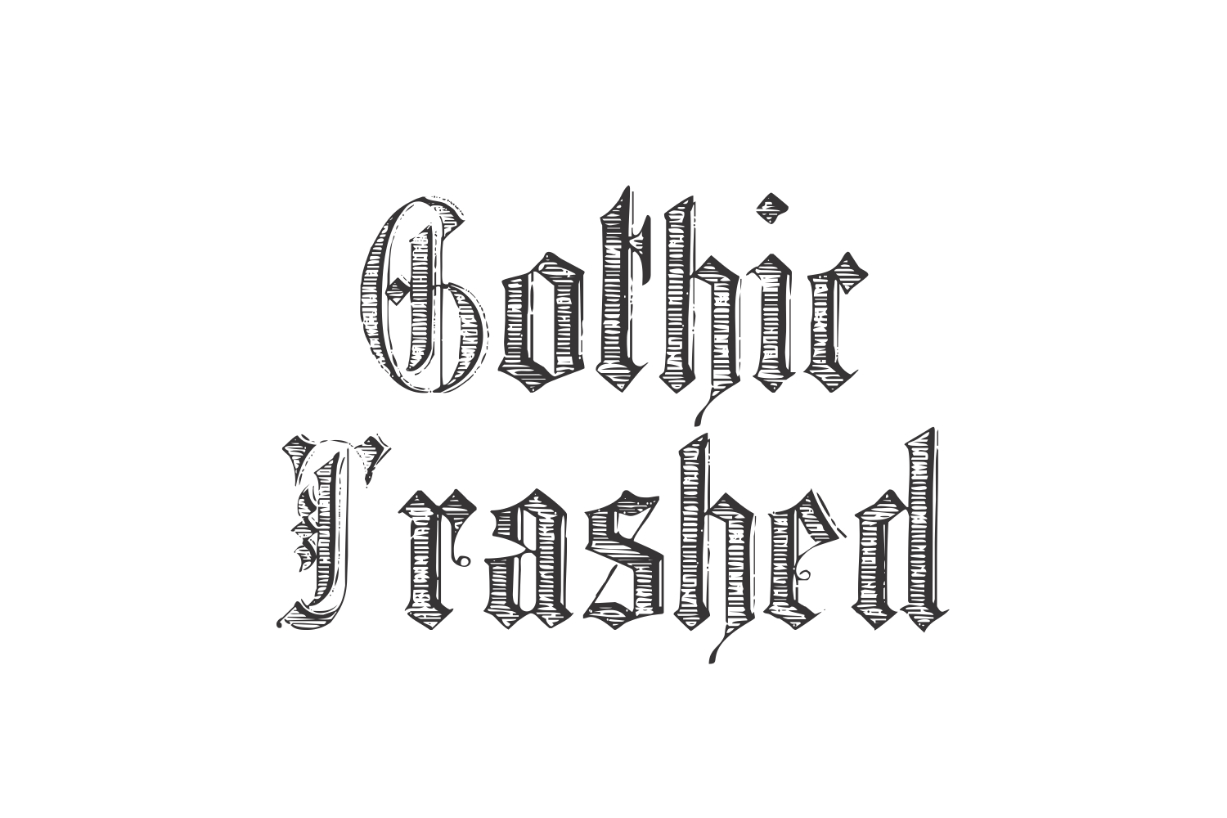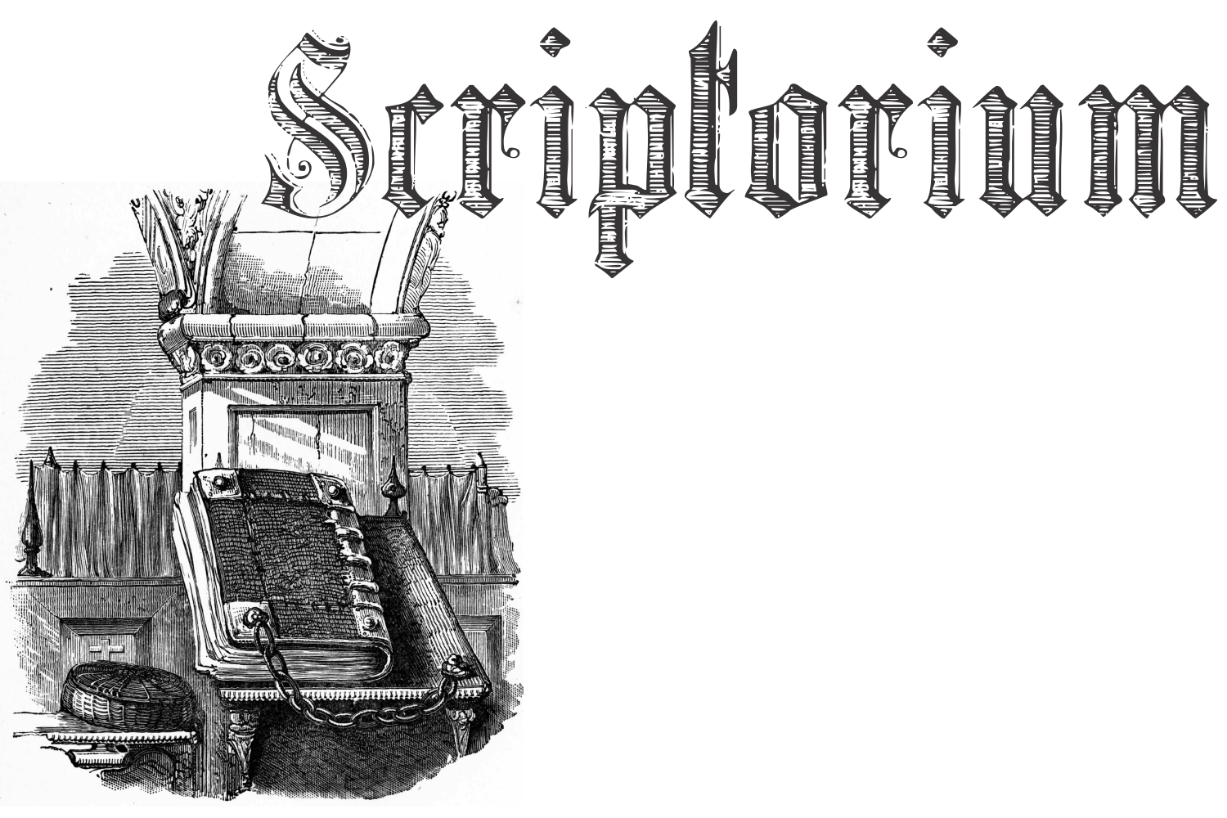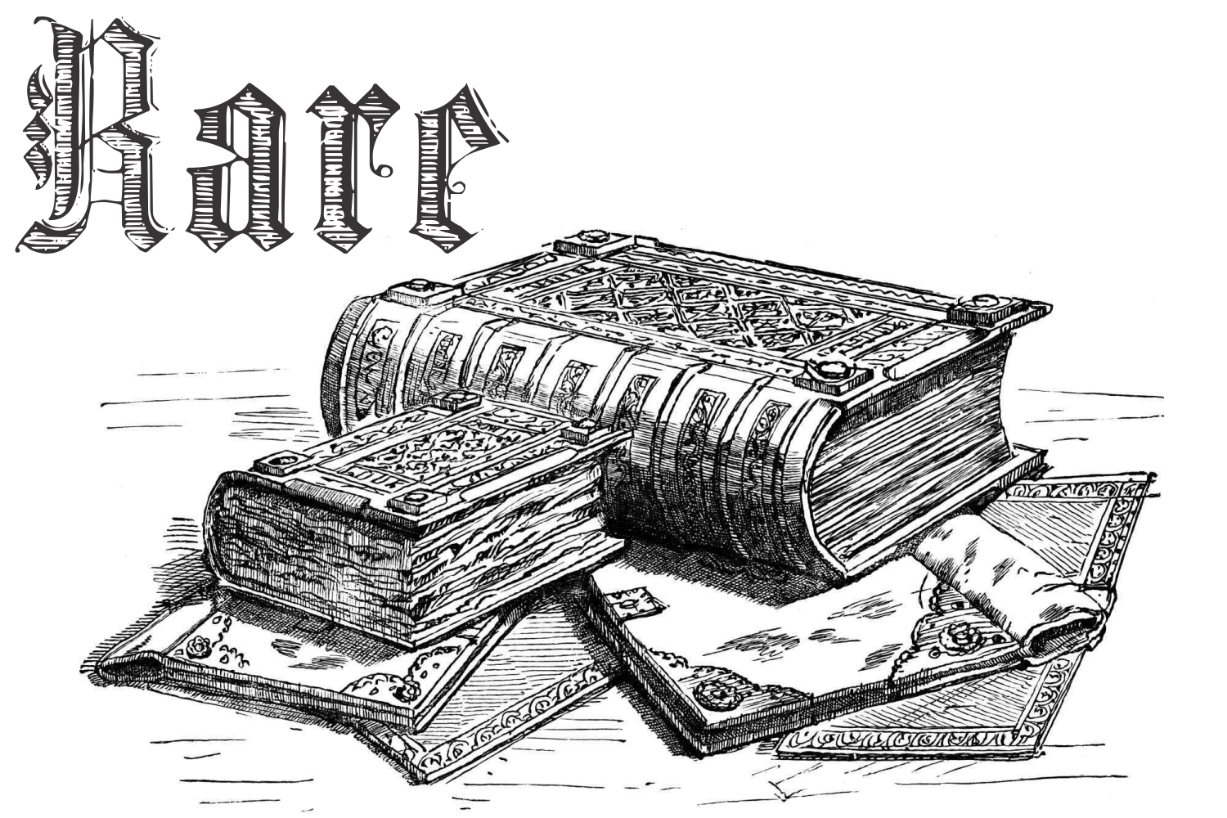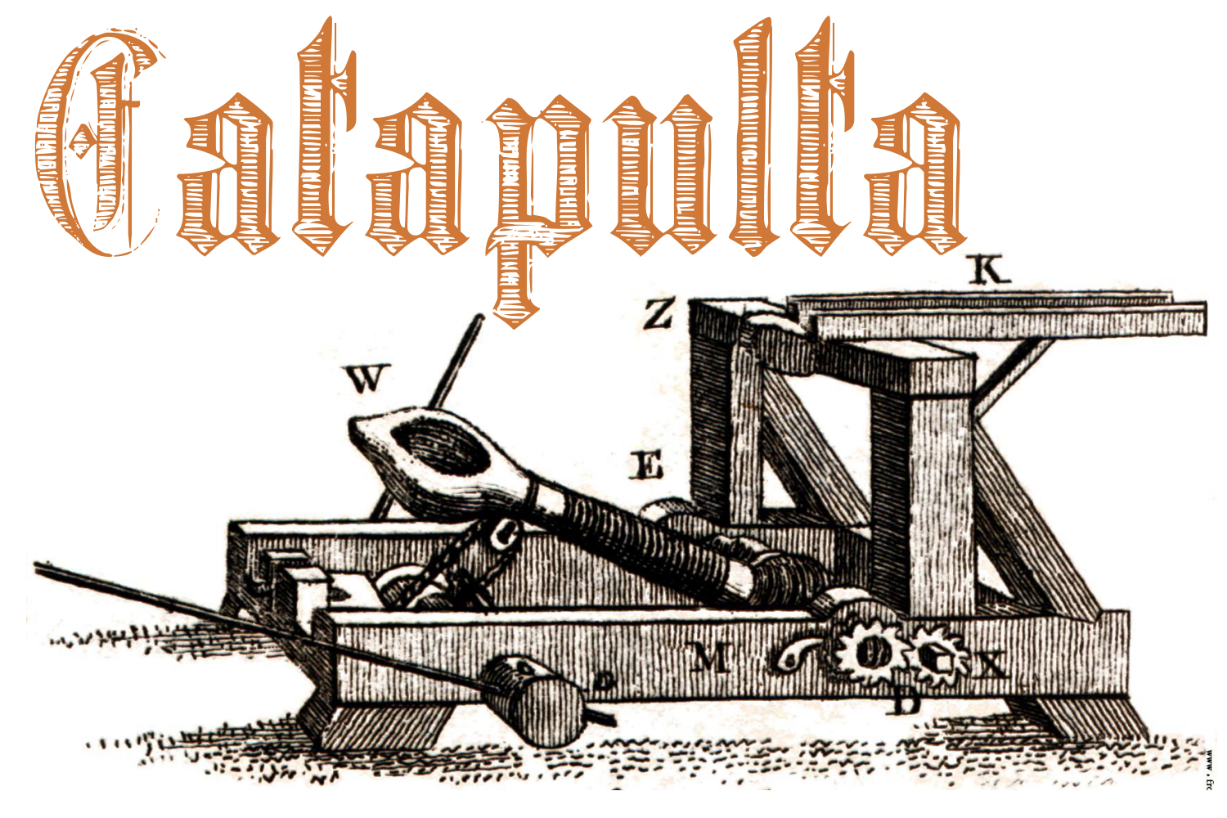
HomeBlackletter FontsGothic Trashed Font Blackletter Fonts Gothic Trashed Font FacebookXPinterestWhatsApp 1 of 6 Gothic Trashed Font Poster 2... Gothic Trashed Font Poster 3... Gothic Trashed Font Poster 4... Gothic Trashed Font Poster 5... Gothic Trashed Font Poster 6... About Gothic Trashed Font The Gothic Trashed is a classic Gothic typeface, remastered by Intellecta Design. DOWNLOAD NOW People also explored Colasta Font Huzairy Love Font Wonder Knight Birthday Party Font Stovetop Manchester Font Term Free Smile Earth Font Loving 340 0 TagsGothic Trashed Font Previous articleEmpires FontNext articleTosca Font LEAVE A REPLY Cancel reply Comment: Please enter your comment! Name:* Please enter your name here Email:* You have entered an incorrect email address! Please enter your email address here Website: Save my name, email, and website in this browser for the next time I comment. Personal Use Free Fifty Five Personal Use Free Read more about this font Spring Personal Use Free Read more about this font Rakesly Personal Use Free Read more about this font Hallo Betty Personal Use Free Read more about this font BLOG To increase your work productivity, choose the most readable fonts. In today's fast-paced work environment, where digital communication and information consumption are integral to our daily routines, the choice of fonts can significantly impact... Best Fonts for YouTube Videos: Make Your Thumbnails Stand Out Fonts That Capture the Spirit of New York City Using Fonts in Digital Marketing: Tips to Strengthen Your Brand Identity